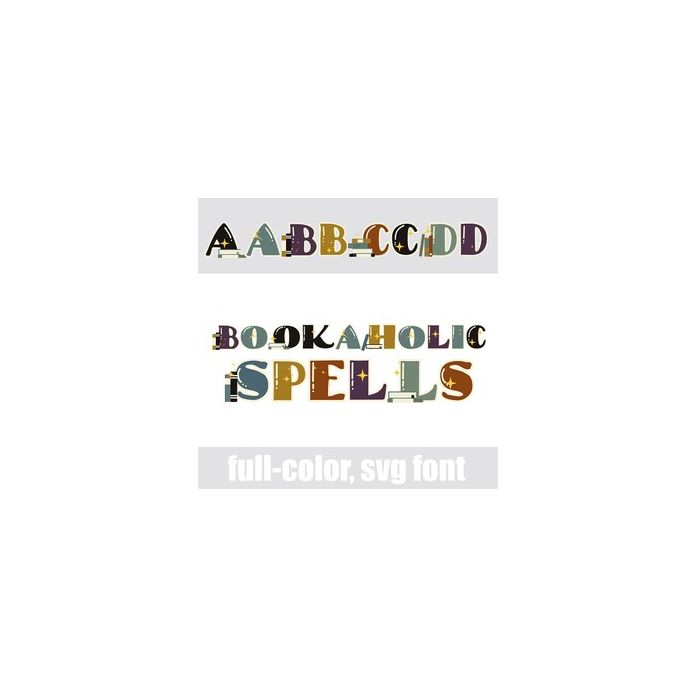
This full-color font features a fun serif font, magic dust, and spell books. There is an alt case w/ additional colors you can access through your system or Silhouette's glyph map.